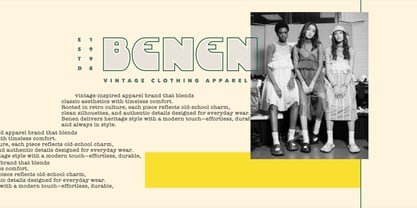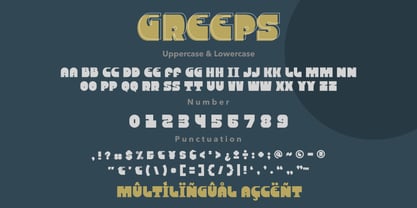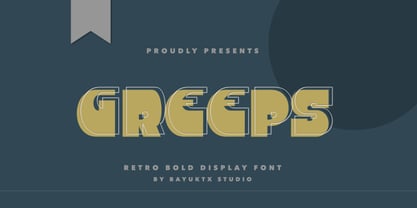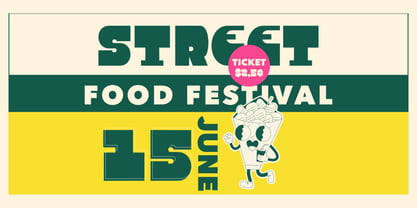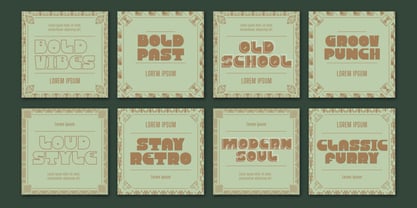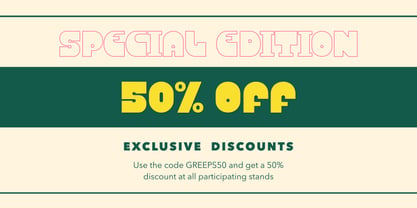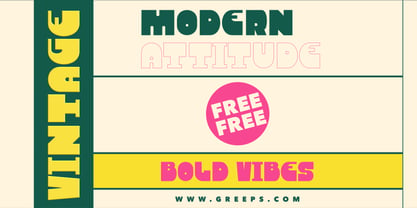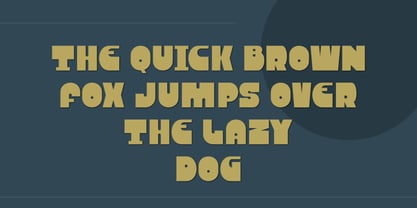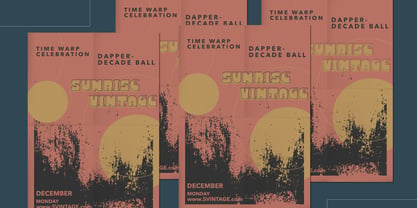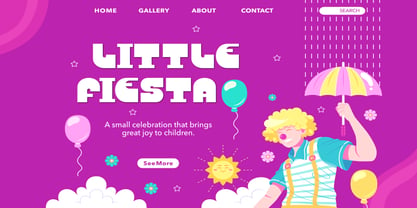
Greeps
by Bayuktx
The Greeps Font Family was designed by Bayu Aji Fais Mursid and published by Bayuktx. Greeps contains 1 styles. More about this family
Greeps – Retro Bold Display Font Greeps Retro Bold Display Font delivers a powerful throwback style inspired by classic vintage posters and bold retro typography. Featuring thick letterforms, rounded geometry, and a strong visual presence, Greeps captures nostalgic charm with a confident and modern display character. Each character is designed with heavy weight and solid structure — making Greeps ideal for bold headlines, branding, and statement typography. Its retro construction reflects classic signage and old-school advertising while staying clean and versatile for contemporary design needs. Inspired by 70s–80s poster aesthetics, vintage packaging, and retro logotypes, Greeps brings warmth, personality, and authority to every composition. This font performs best at large sizes, ensuring maximum readability and striking impact. From logos to posters and merchandise graphics, Greeps stands out as a display font that celebrates retro heritage with bold confidence. Key Features : * Uppercase & Lowercase * Numerals & Punctuation * Multilingual Support * PUA Encoded & OpenType Features * Bold Retro Display Style * Thick & Rounded Letterforms Suitable For : * Retro Branding & Logos * Posters, Flyers & Headlines * Vintage Packaging Designs * Fashion & Merchandise Graphics * Album Covers & Music Artwork * Social Media & Promotional Designs * Retro Signage & Advertisements With Greeps Retro Bold Display Font, your designs make a bold statement — blending nostalgic energy with timeless retro style.
Designers: Bayu Aji Fais Mursid
Foundry: Bayuktx